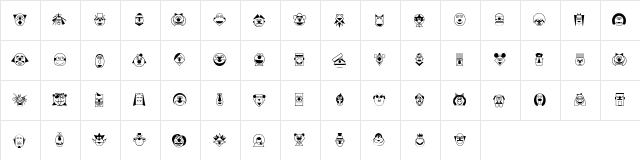
regularmup Regular
Design Context for regularmup Typeface
regularmup is a composed and adaptable typeface that performs quietly and consistently across a wide range of design contexts.